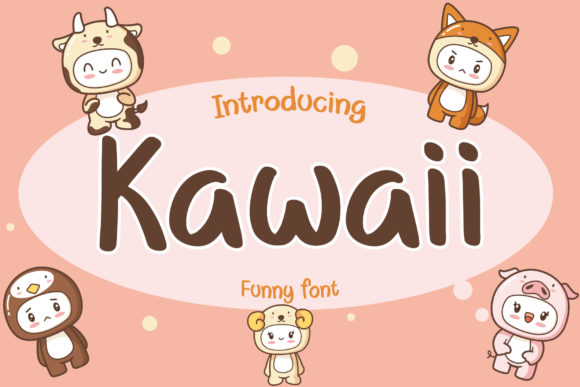
Are you tired of bland and boring fonts for your product labels? Look no further than the Kawaii Font, the best font for product labels! Created by AquariiD, this script font is perfect for adding a touch of personality to your designs.
With its cute and casual handwritten style, Kawaii Font is incredibly versatile and can be used for a variety of projects. Its friendly feel is perfect for social media, where it will bring a unique and eye-catching flair to your posts. You can also use it for calligraphy projects, adding a personal touch to your DIY creations.
But Kawaii Font isn't just cute, it's also functional. Its bold lines make it easy to read, even at small sizes, ensuring that your product labels will be clear and legible. Plus, its keyword-rich name will help your products stand out in online searches, increasing your visibility and driving sales.